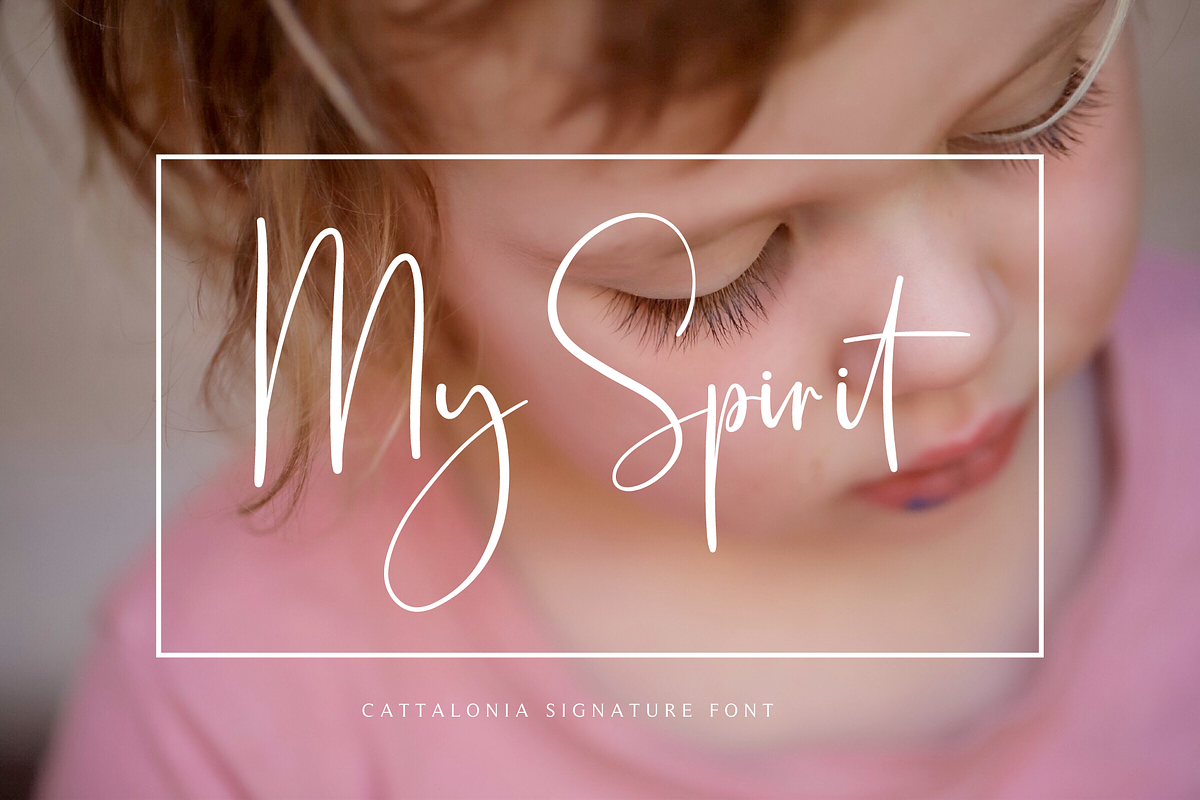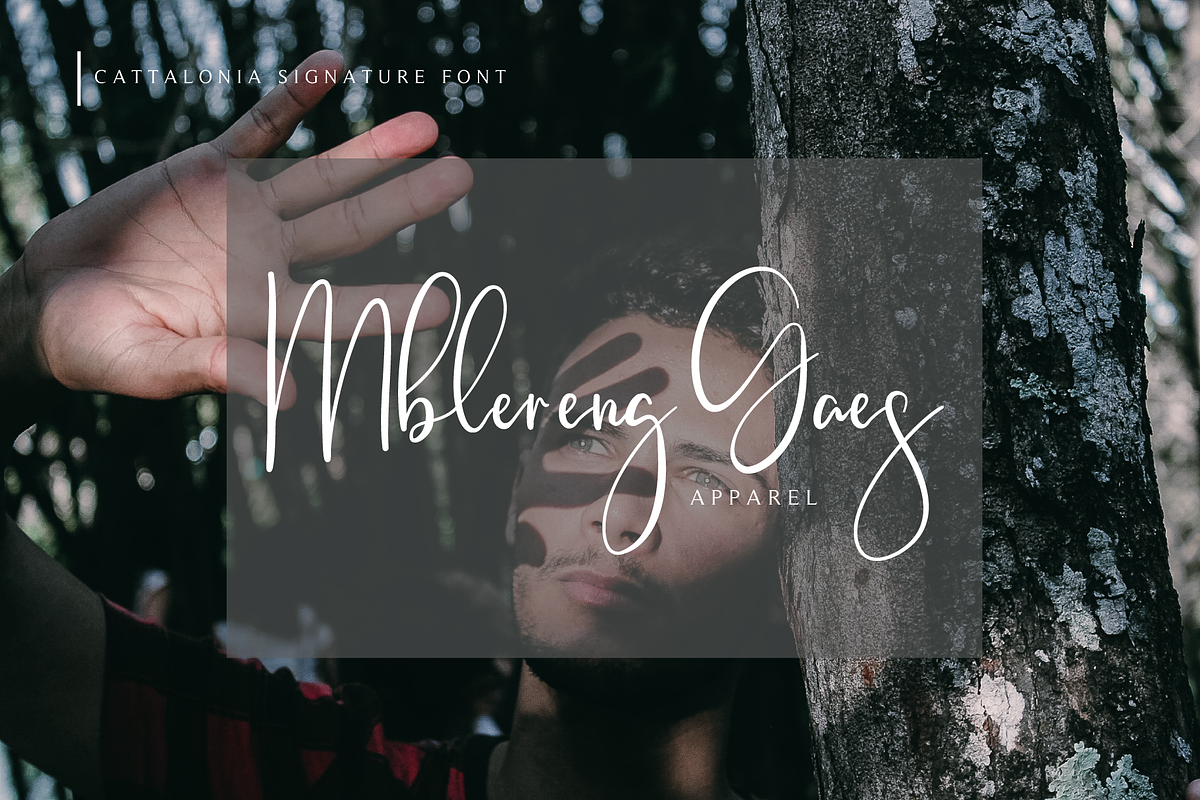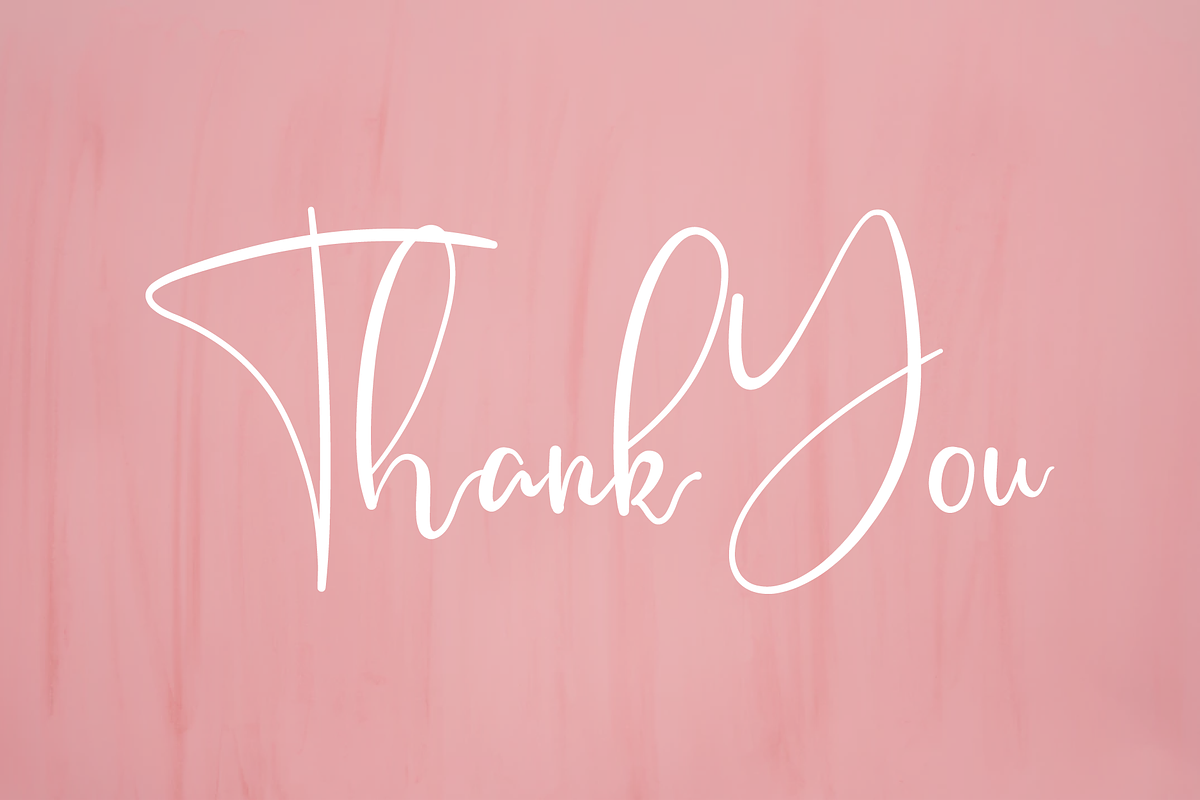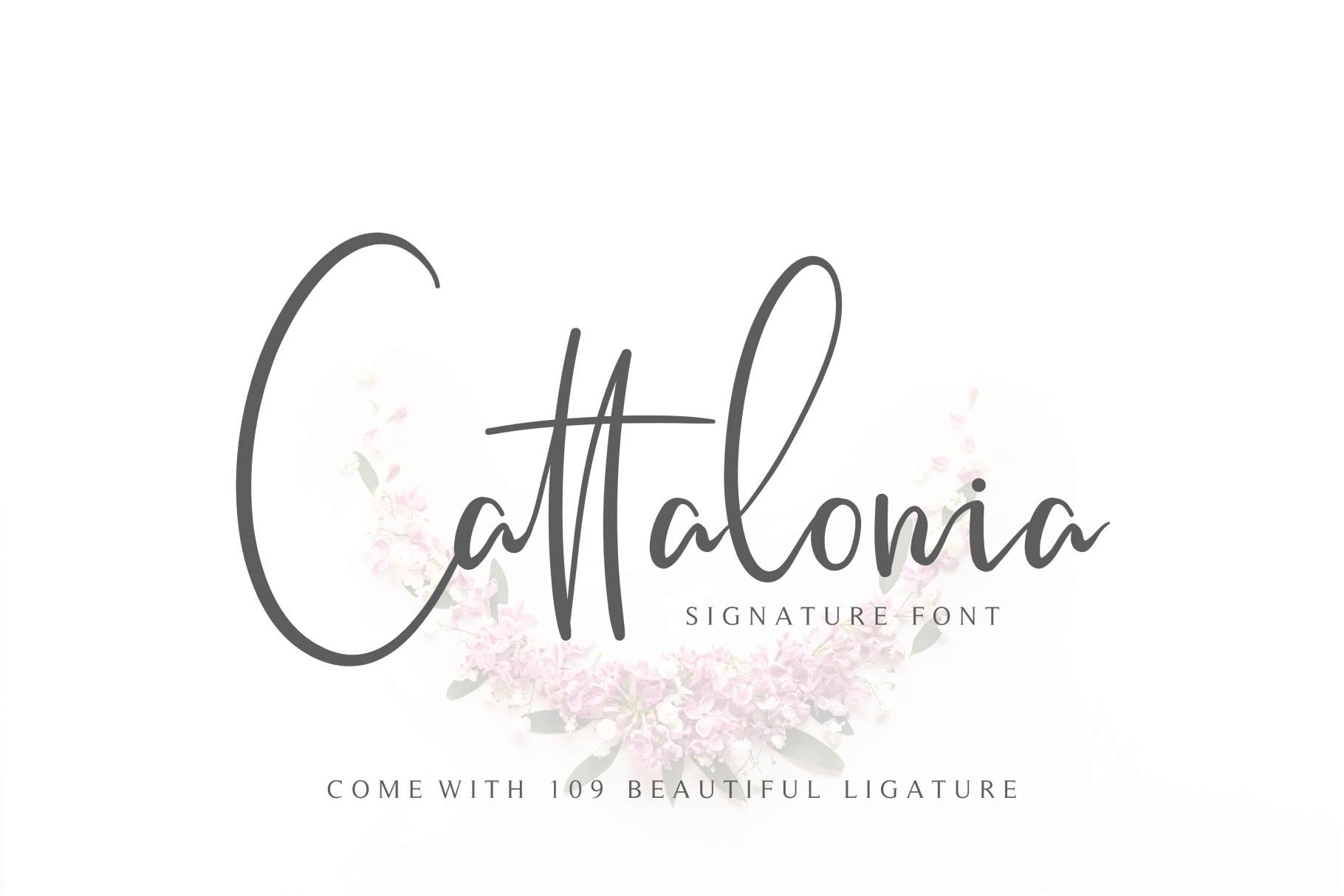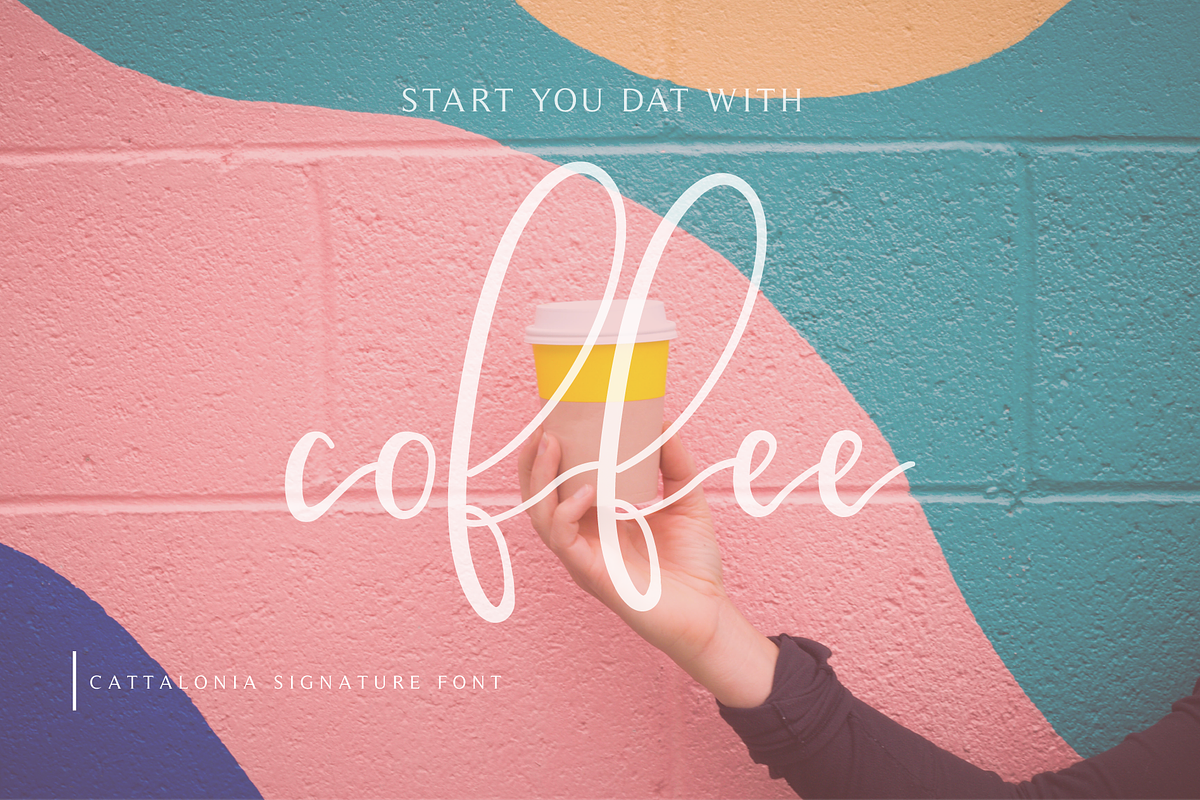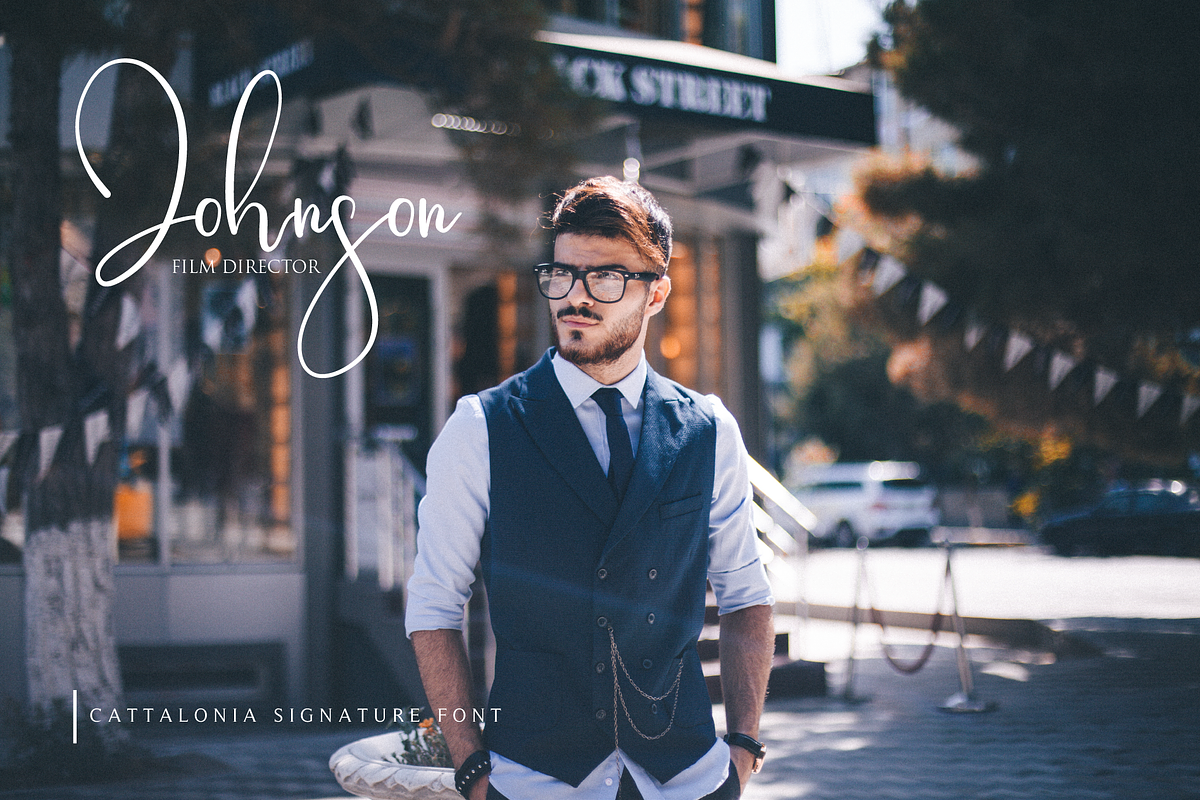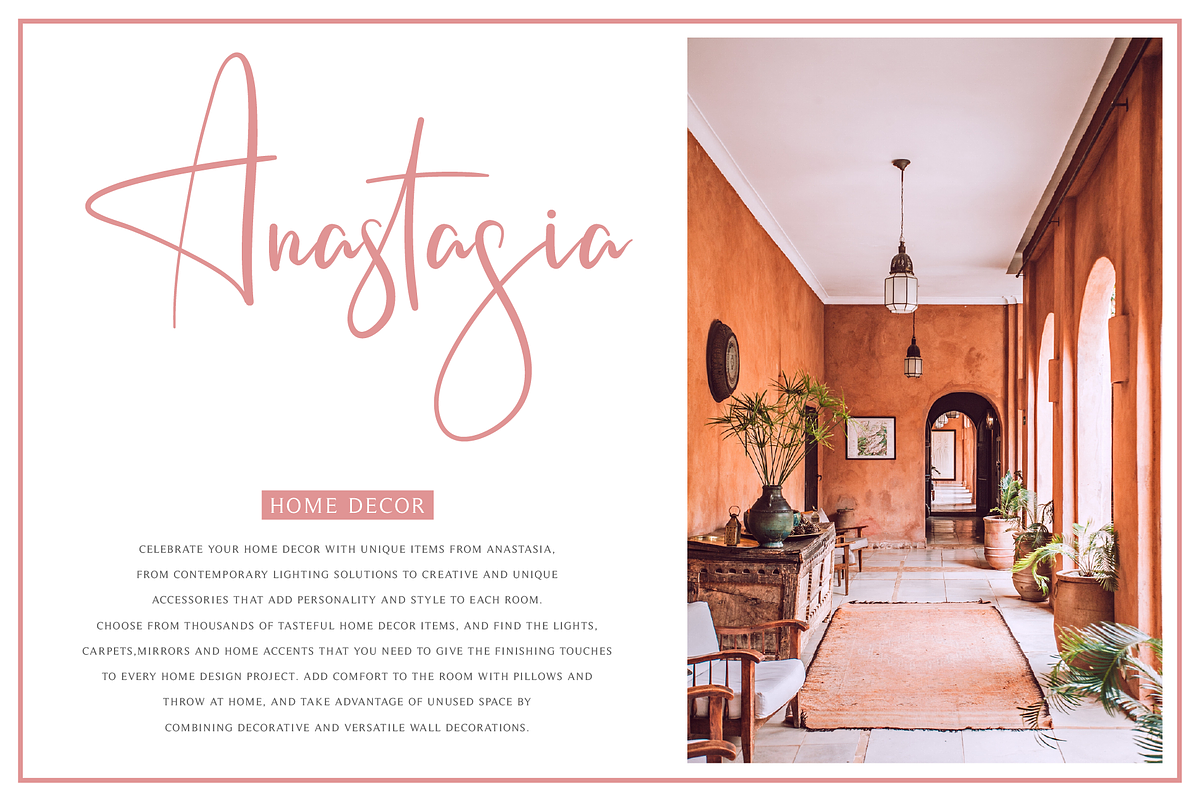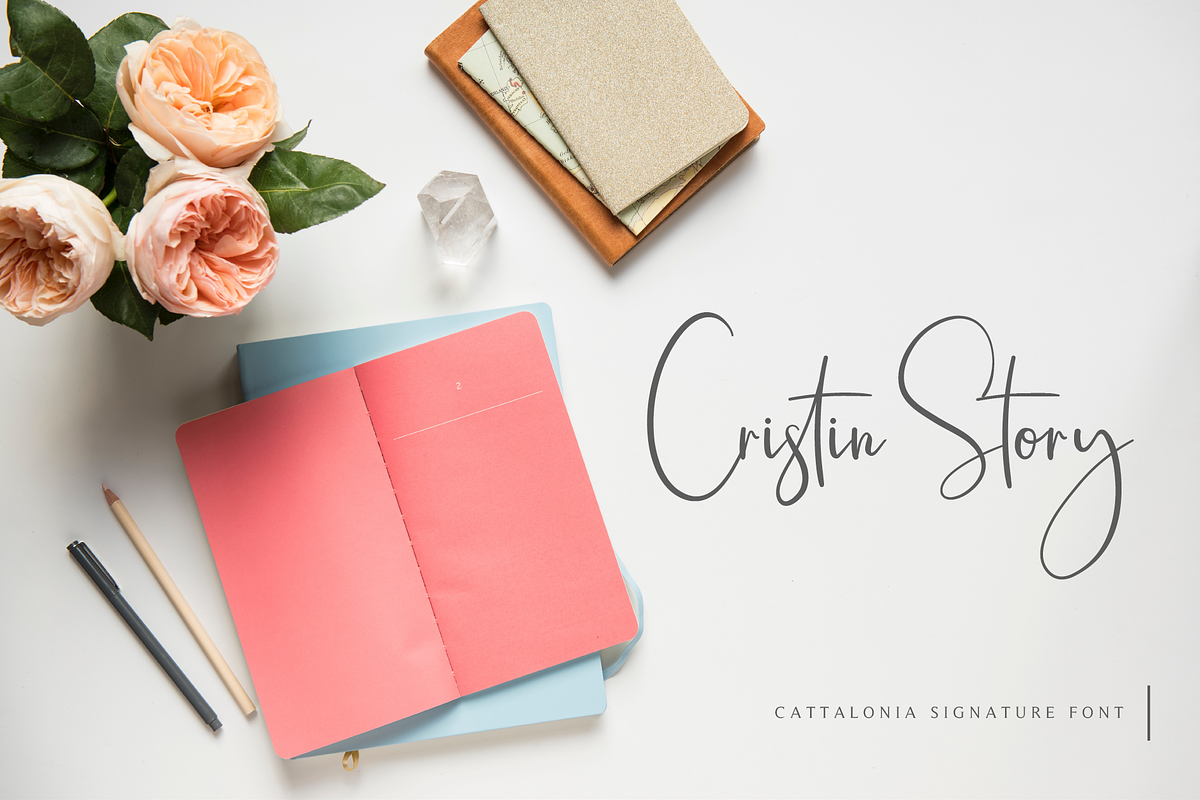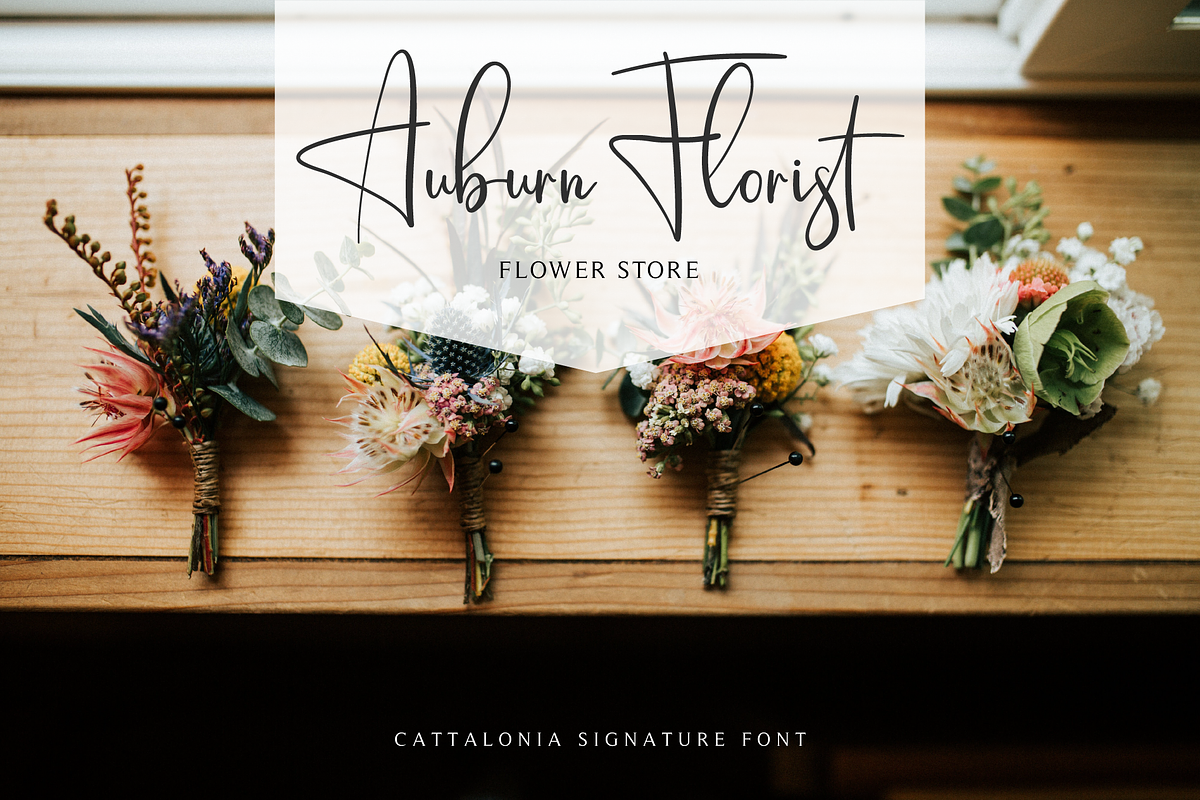
Cattalonia Signature Font
Introducing the lovely new Cattalonia Signature Font!
Cattalonia has a style signature with natural curves and shapes that can be used for various uses, such as watermarks, branding, logos or logo names, and much more. Cattalonia comes with 109 beautiful ligature, so it will be beautiful to use.
Here Is Cattalonia Ligature :
aa ab ad af ar at ax ay az and att bb bl bx by ca cd cr ct cx cy cz dd dk dl dt ea ed eo er et ex ey end ett ff fi fo fr fy gg gy hh hy ii ip ir it ix iy itt jr jy kb kh kk kl ky ll lo ly mm mr mx my nd ni nn nt ny oo op or ot ox oy ott pr pt px py qj qs qy qz rr ry sg sjss st sy th tt uu ut uy uz utt xx xy yj yg ys yz zg zy zz
- Cattalonia Includes Capital and Lowercase Letters, and 109 Ligatures
- Numbers + Punctuation
- Foreign Language Support
- Pua Encoded